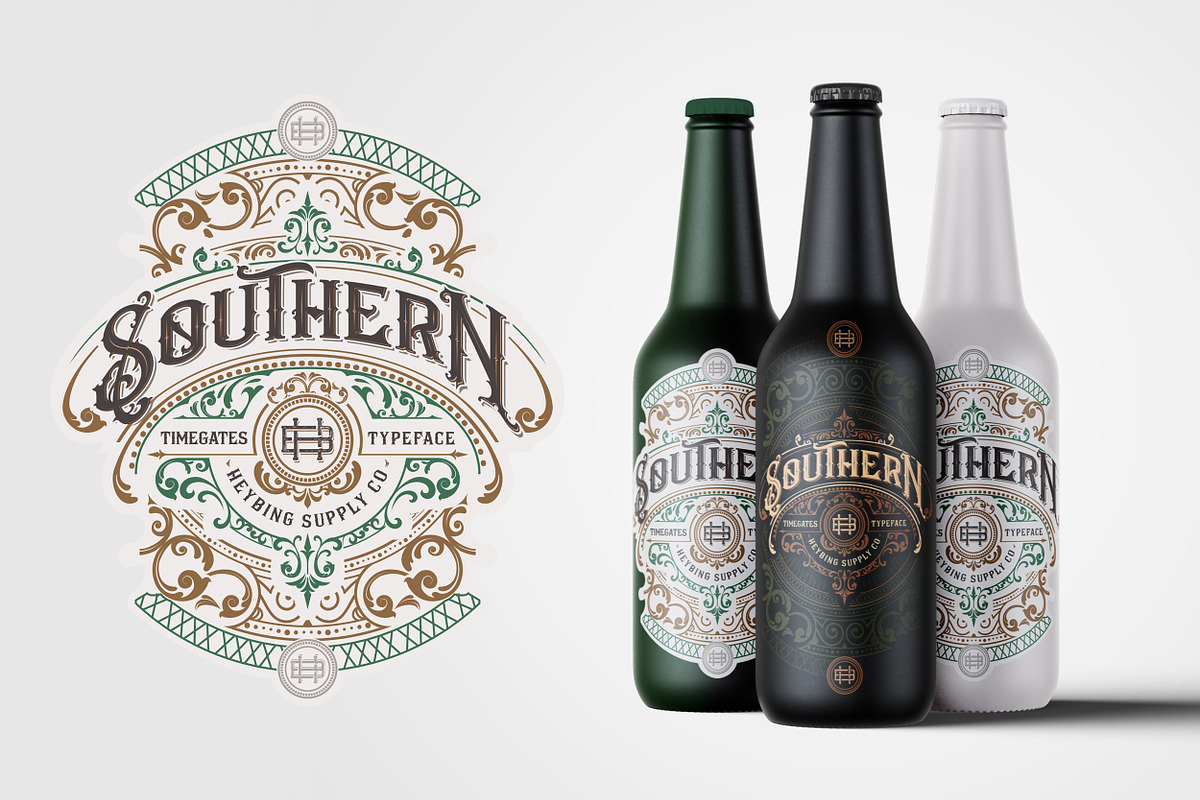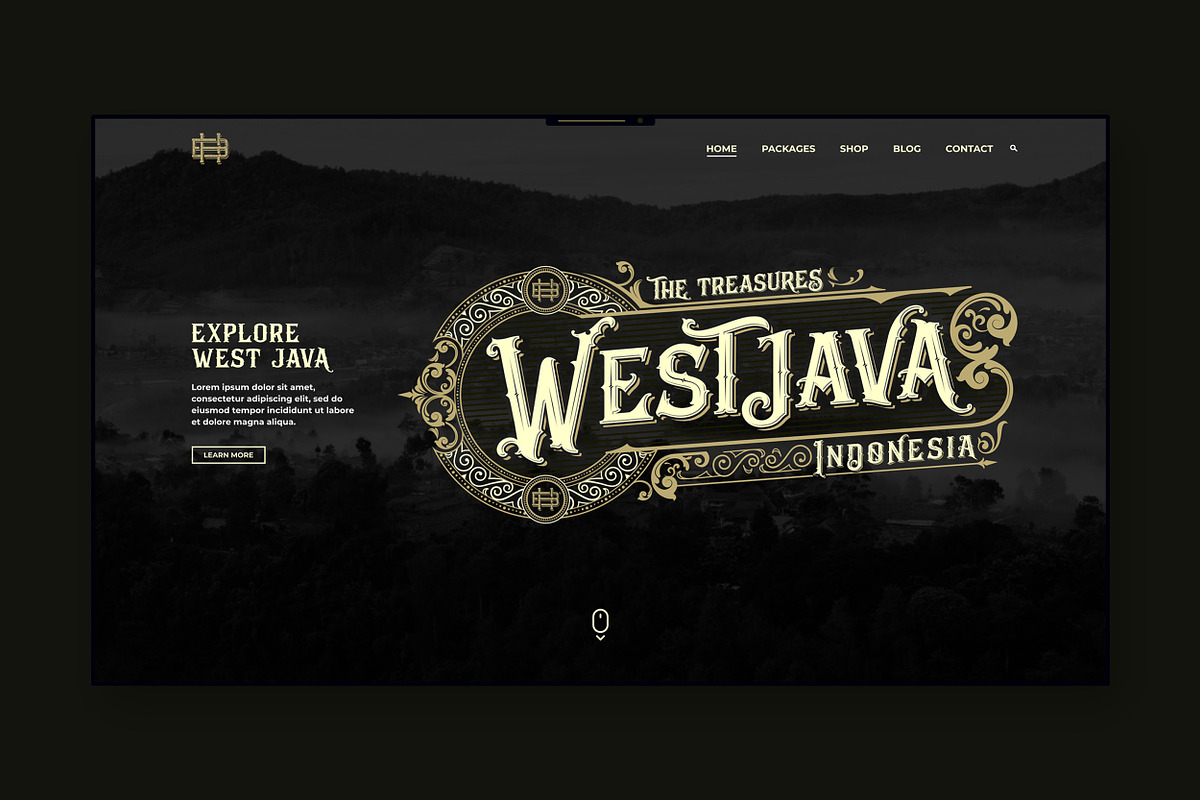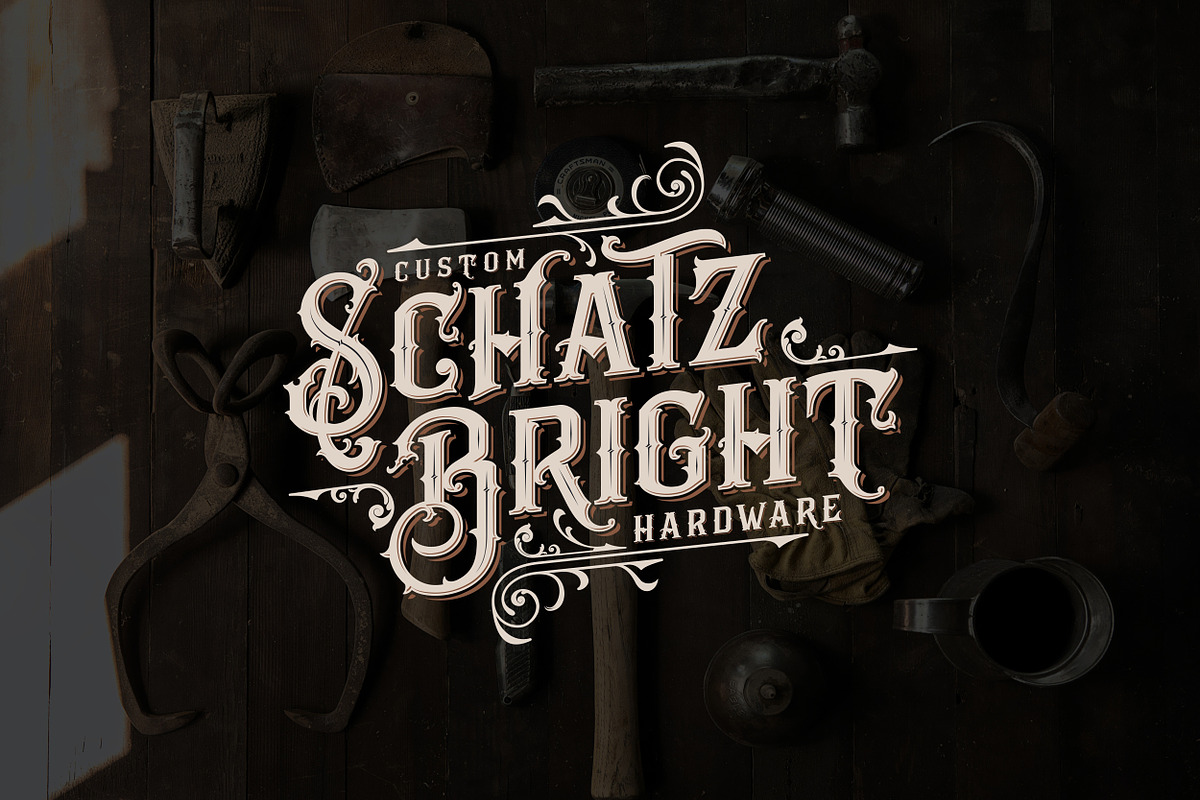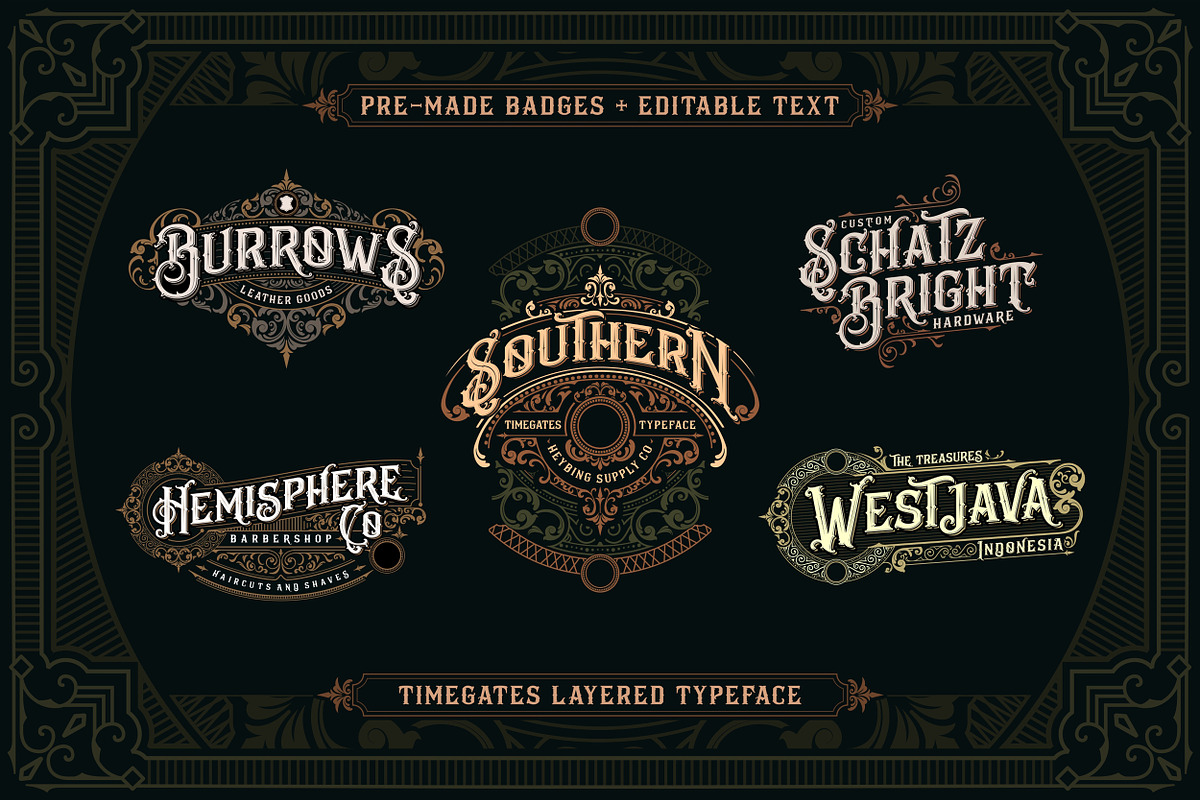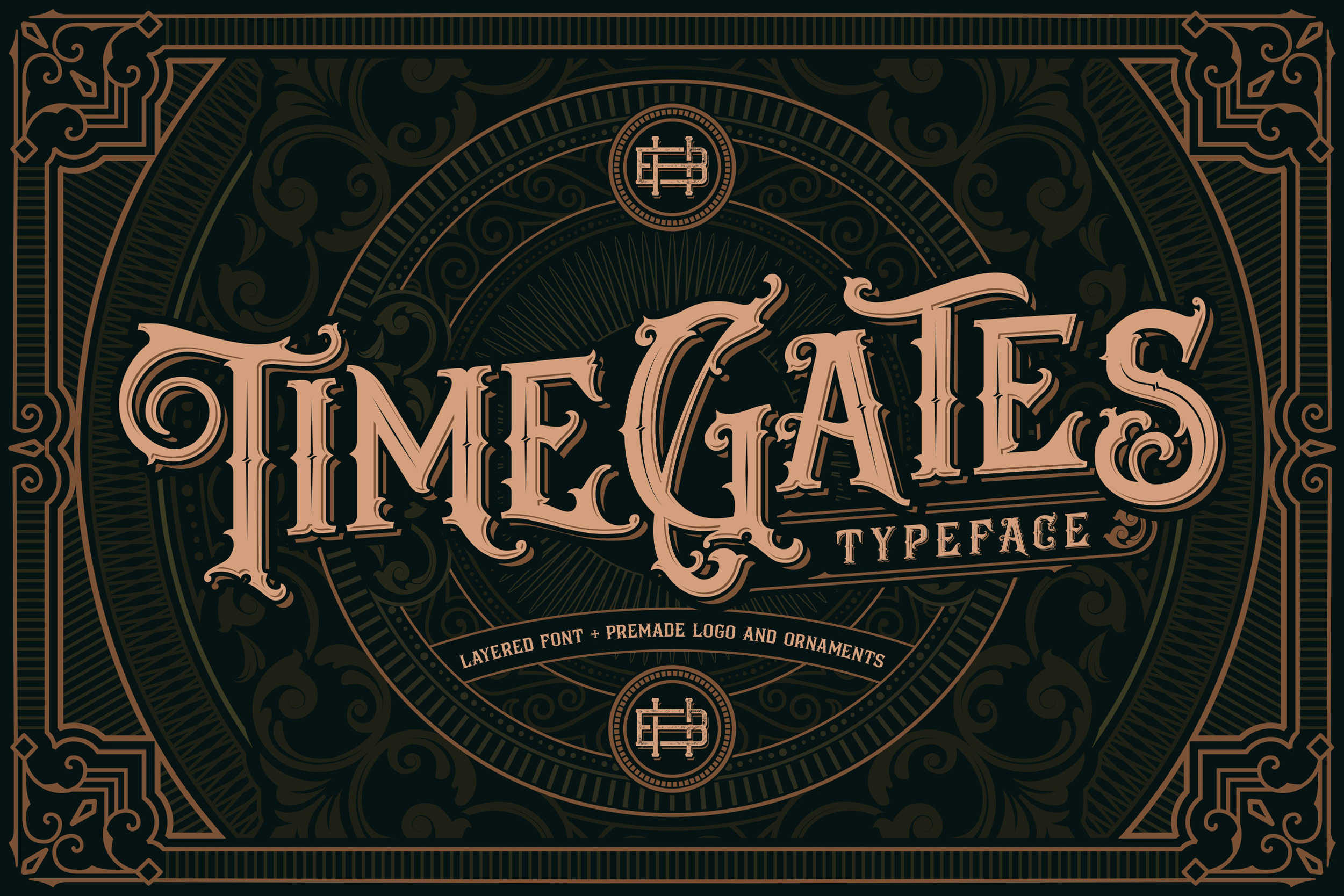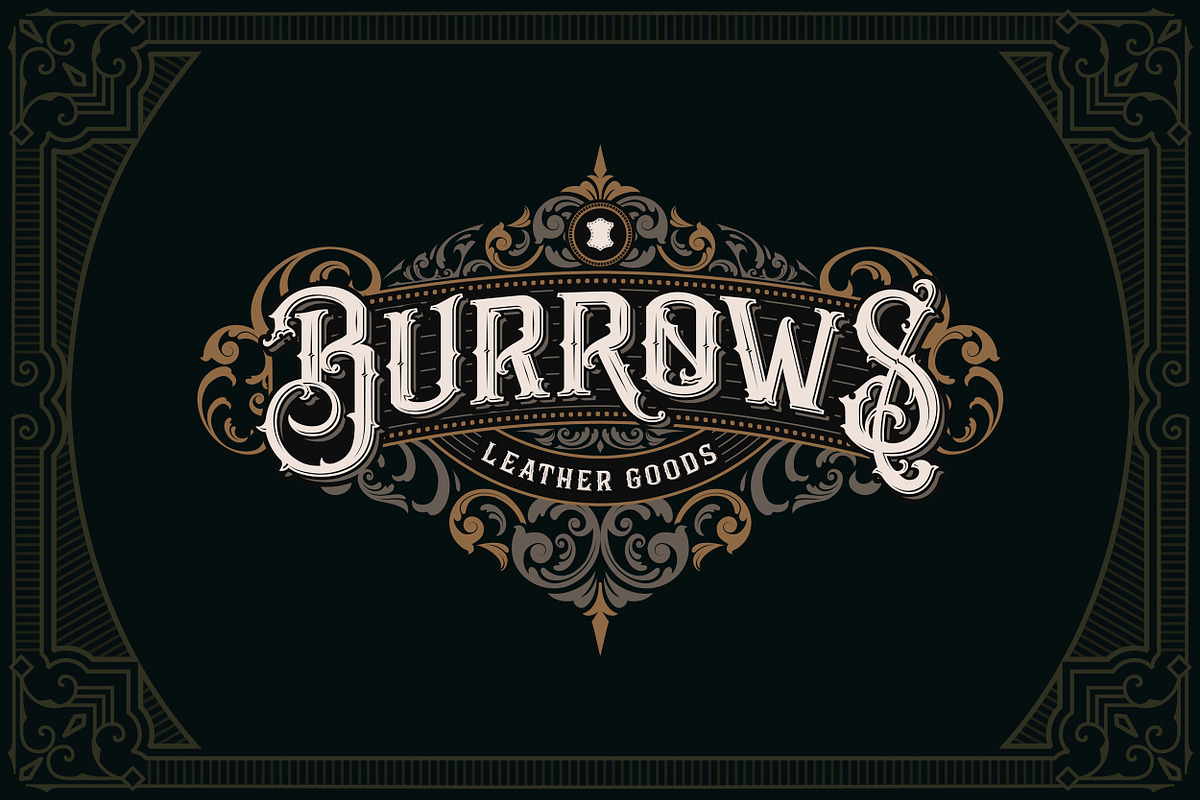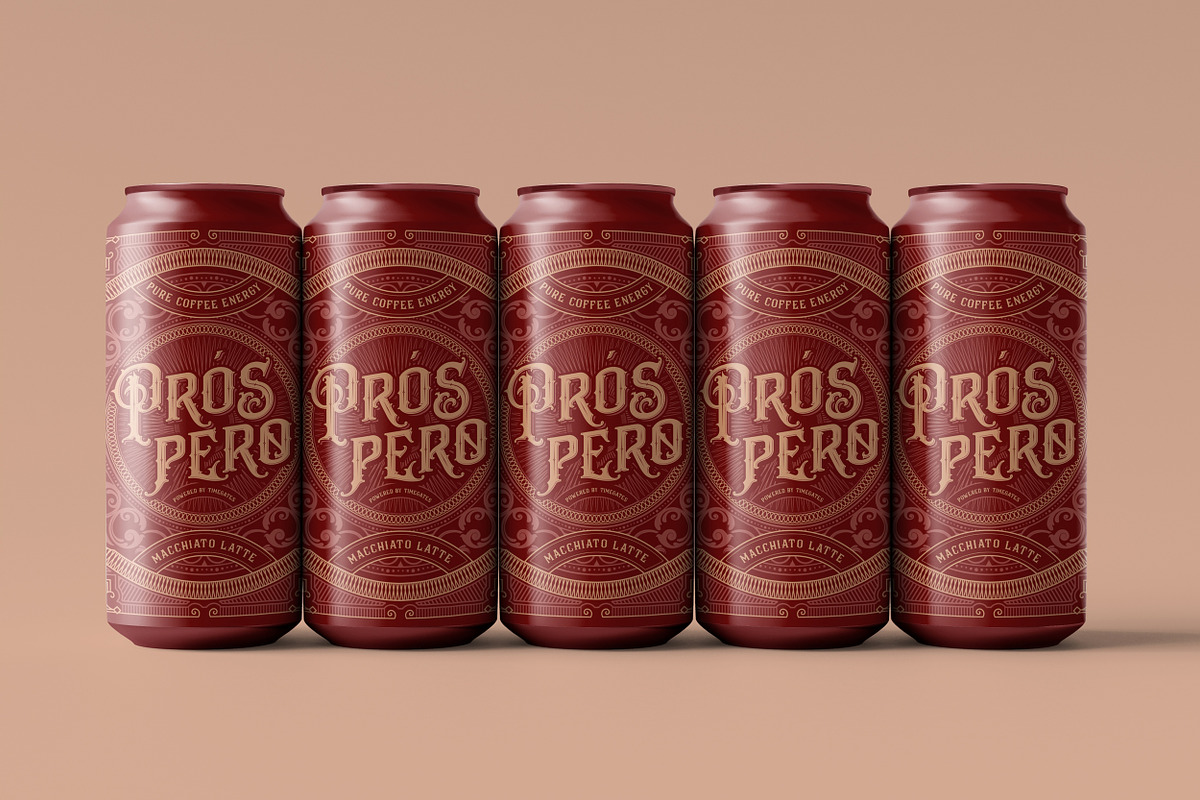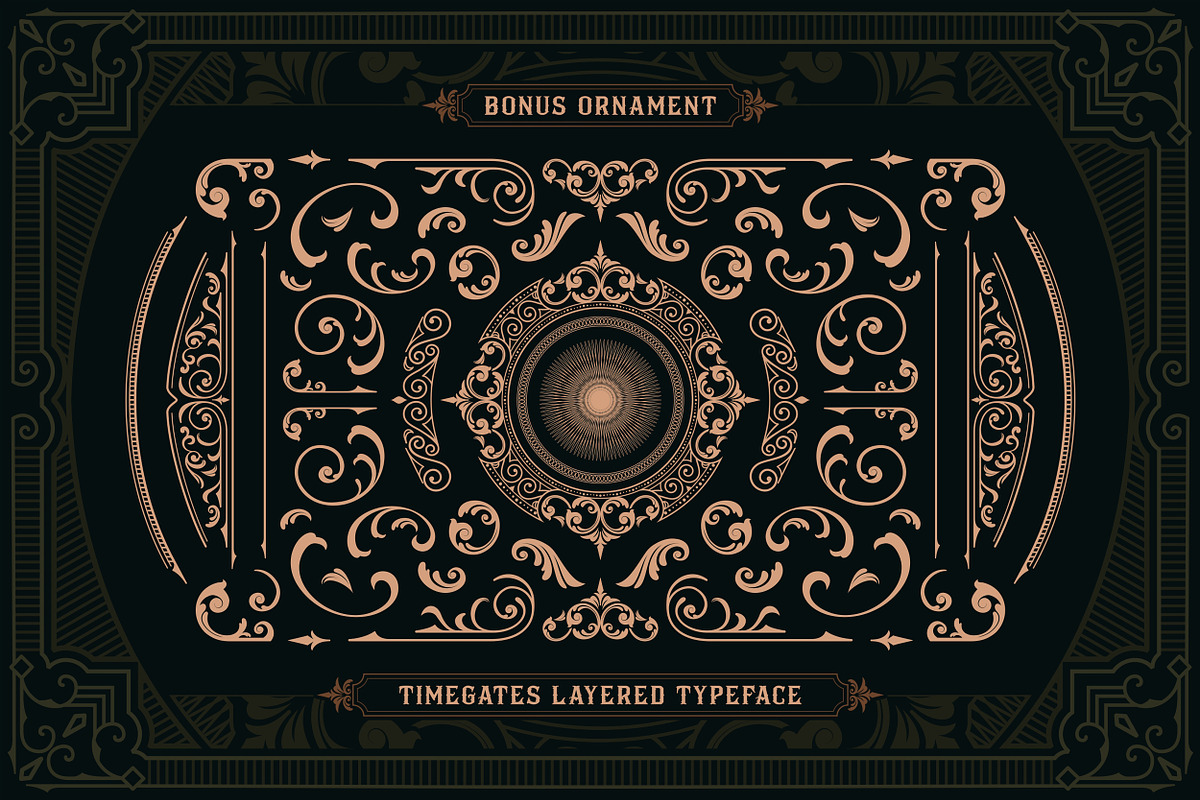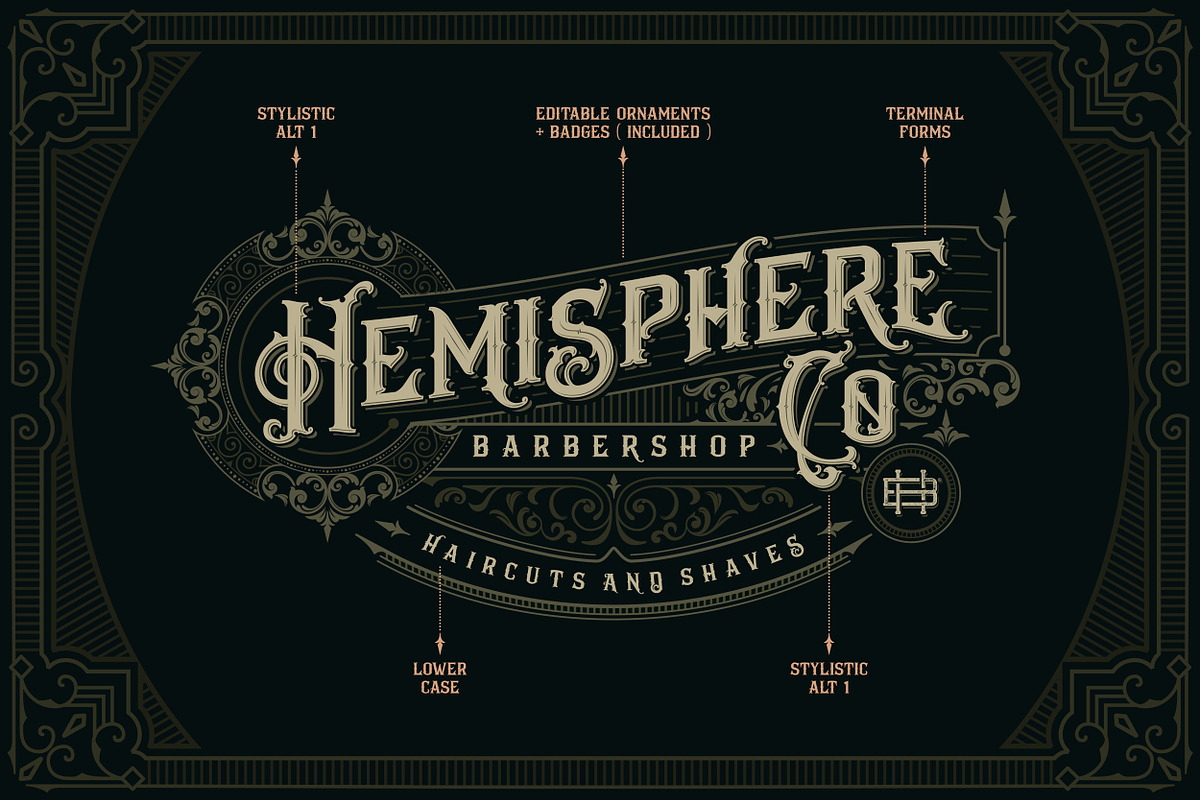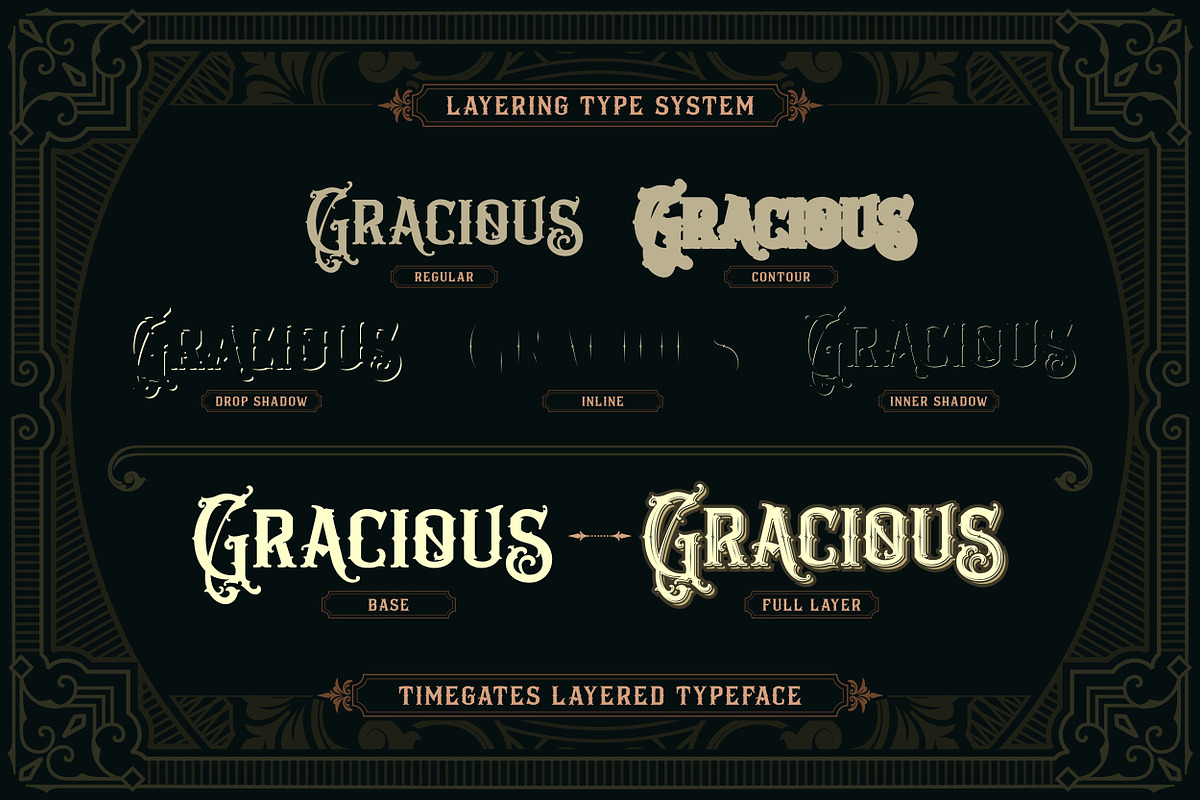
Timegates Typeface + Extras
Timegates Typeface is a bold multi-layered type family with opentype features, inspired by vintage signage that have unique decorative shapes. Comes with 5 font system that can be layered to create different effect (Regular, Drop Shadow, Inner Shadow, Inline & Contour ).
- Layered font system
- Character Set A-Z
Timegates Typeface family is perfect for logotype, gig poster, letterhead, dropcap, titles, and any artworks.